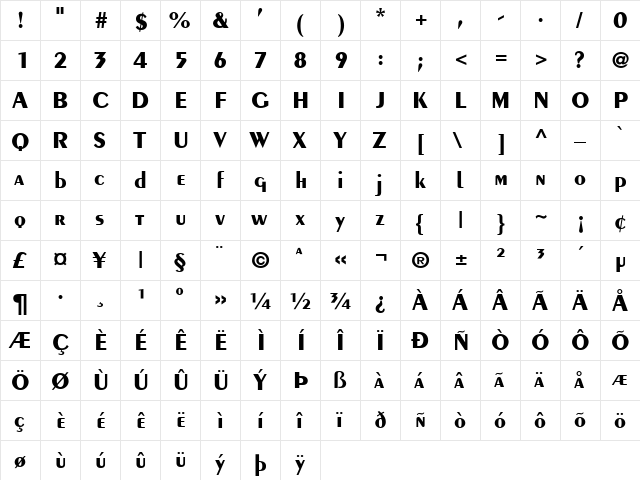
Penguin Bold
Design Context for Penguin Typeface
Penguin offers clean, dependable letterforms without strong stylistic allegiance, making it a practical choice for designers who need flexibility. The heavy weight commands attention and anchors typographic hierarchies.